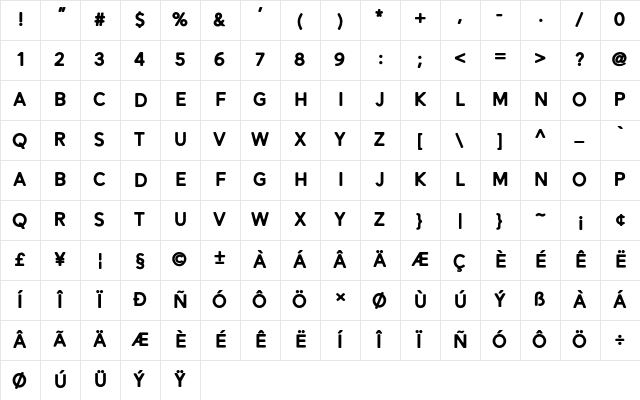
Alesand Round ExtBd Regular
Design Context for Alesand Round ExtBd Typeface
Alesand Round ExtBd softens its letterforms with rounded terminals, giving it an approachable, friendly quality that works well in consumer-facing and digital contexts.
Well-suited to UI design, mobile interfaces, and any brand that wants approachability without sacrificing clarity.
Font Pairing: Pairs well with a rounded or humanist sans for body copy, maintaining the friendly tone without relying on Alesand Round ExtBd to carry extended reading.
Pro Tip: Use Alesand Round ExtBd for UI elements, app interfaces, and anywhere a friendly, approachable tone needs to be maintained without sacrificing clarity.